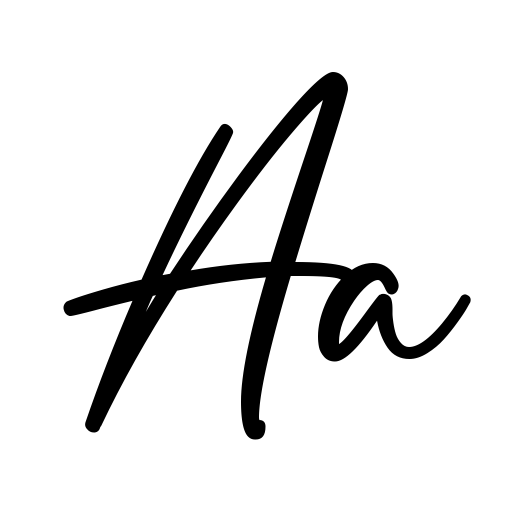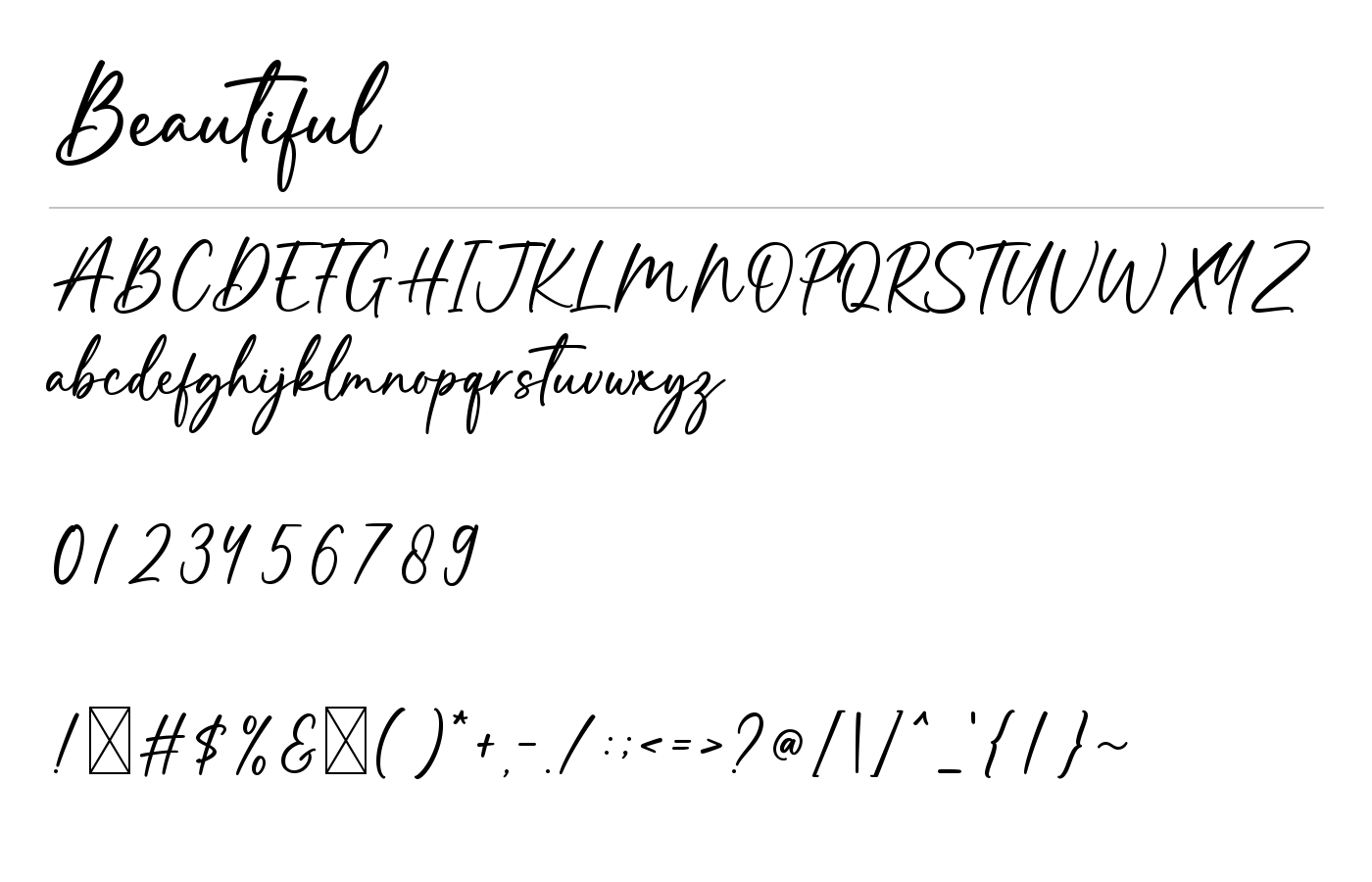
Beautiful Font is an elegant and modern handwritten script with smooth, flowing strokes and a casual yet refined feel. Its slender, slightly condensed letterforms and consistent stroke weight make it perfect for adding a personal, stylish touch to branding, invitations, and creative headlines. This font works wonderfully where a sophisticated, approachable personality is desired without sacrificing readability.
Beautiful Font
About Beautiful Font